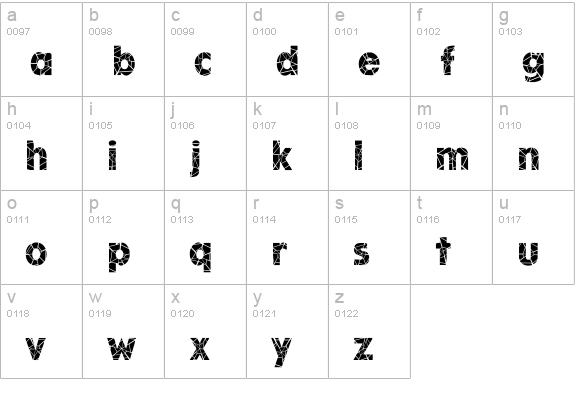
KolkmanShatter Font Details
KolkmanShatter font is a bold and dynamic typeface that exudes energy and creativity. Its shattered design gives it a modern and edgy look, making it perfect for projects that require a strong visual impact. This font is versatile and can be used for various design purposes, from posters to logos to website headers. What makes KolkmanShatter font even more appealing is that it is completely free to download at FontsMarket.com. This means you can easily access this unique and eye-catching font for your design projects without any cost. Don't miss out on the opportunity to enhance your designs with the striking KolkmanShatter font – download it for free today!